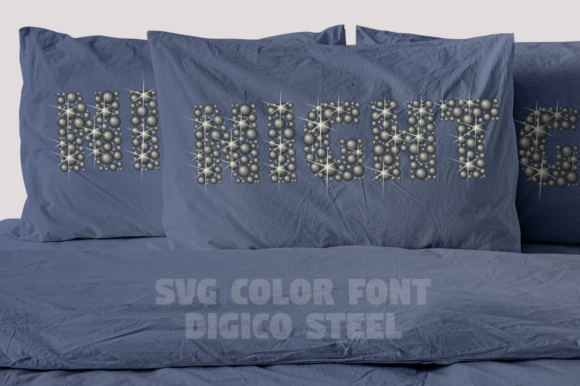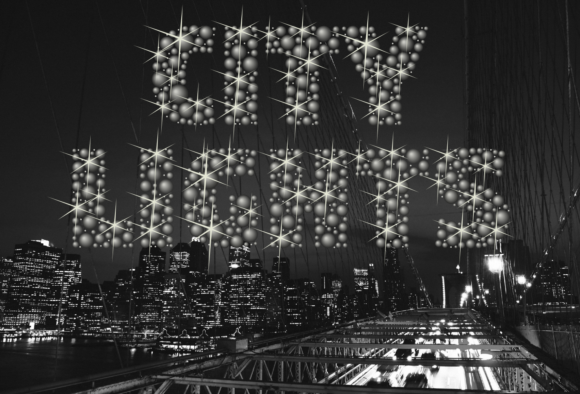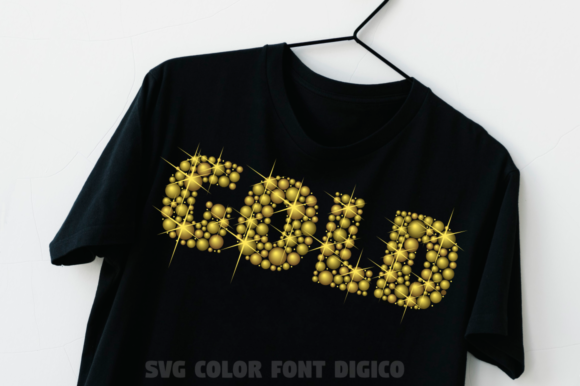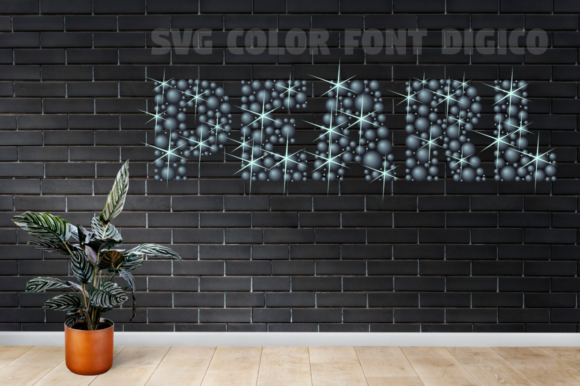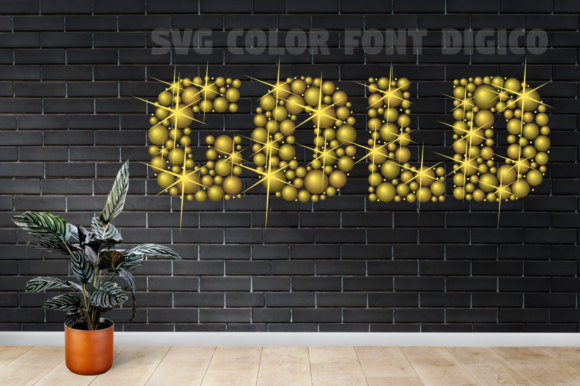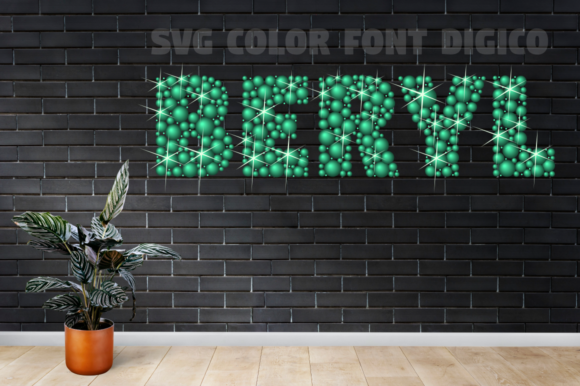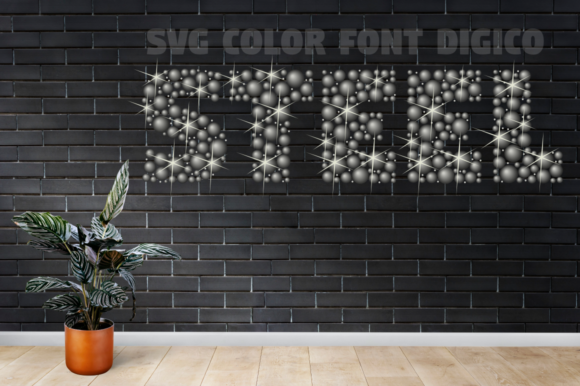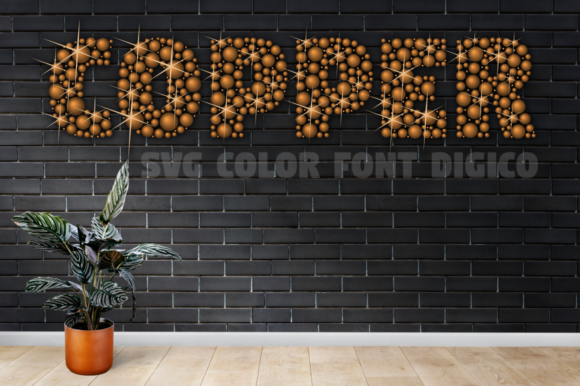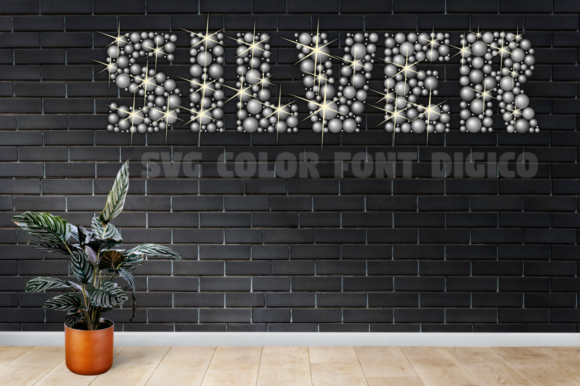
Digico Metals Font
About Digico Metals Font
Introducing Digico Metals, a one-of-a-kind color font that is sure to captivate and inspire. This font showcases a remarkable combination of metallic textures and vibrant colors, creating a visually stunning effect that will elevate your designs to new heights.
With its versatile style, Digico Metals offers endless possibilities for your creative projects. Whether you’re designing logos, posters, packaging, or any other visual content, this font will add a touch of brilliance and sophistication.
Fall in love with the captivating and versatile style of Digico Metals and let your imagination soar. Whether you’re creating eye-catching logos, striking posters, or impressive packaging designs, this font will make a statement and leave a lasting impression. Get ready to unlock a world of creativity with Digico Metals and bring your designs to a whole new level!